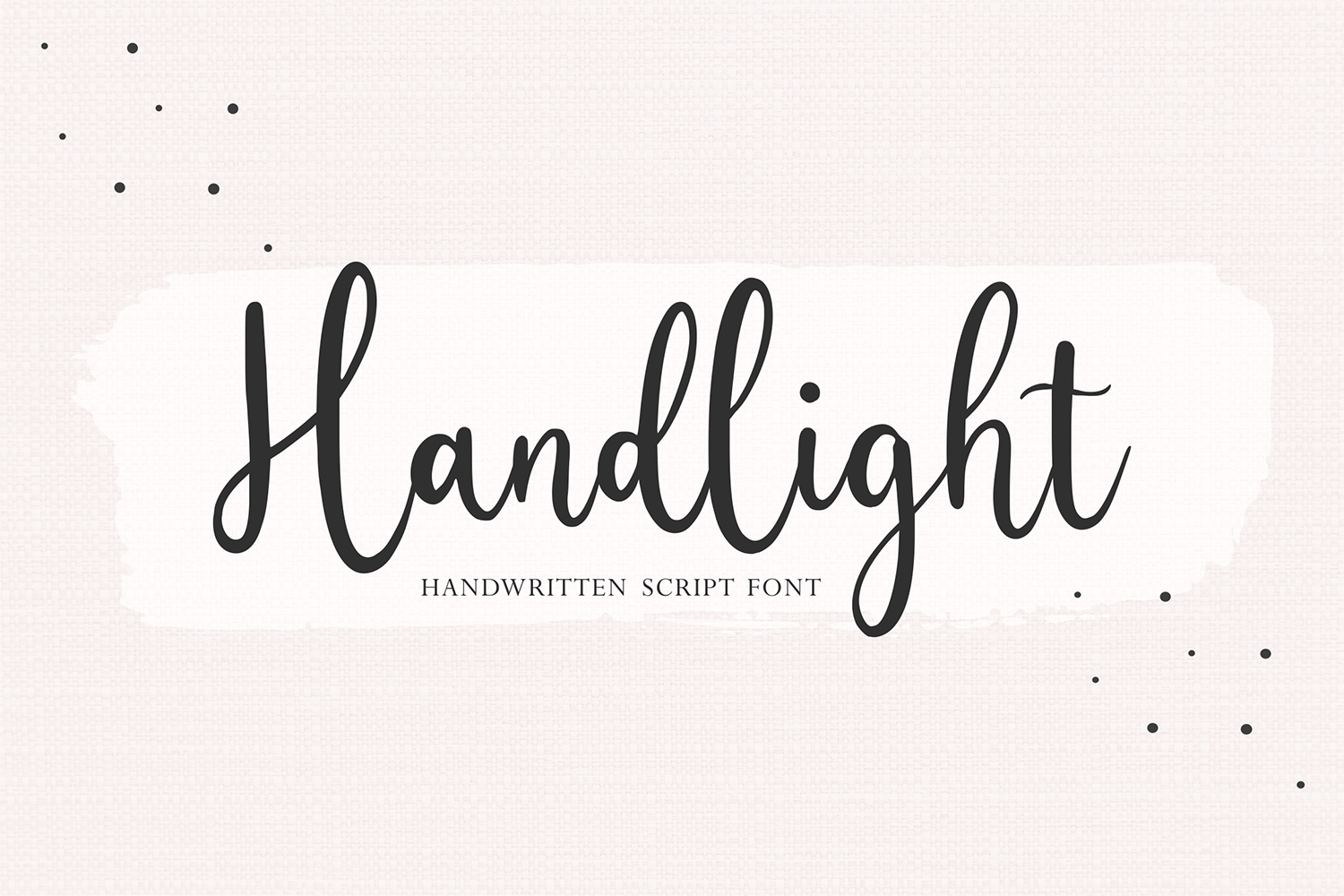
Handlight Free Font
Handlight Free Font is a clean, relaxed, and friendly handwritten font. Suitable for a wide variety of designs due to its neat and simple style, this font has the potential to become your favorite go-to font, no matter the occasion. This free typeface was designed by a talented Allouse Studio. If you like it don’t forget to check out the full version.